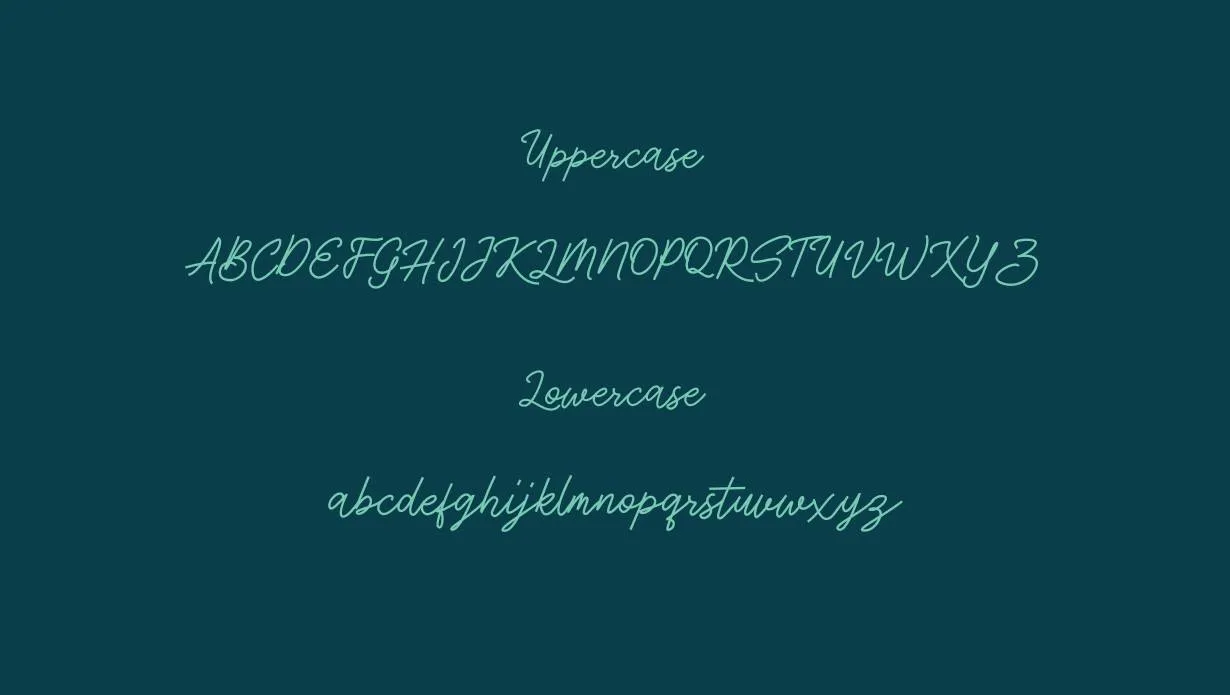
The Antique Font whispers tales of bygone eras, adding a vintage touch to your designs. Perfect for projects that embrace nostalgia or a classic aesthetic, its characters transport you to the past.
| Name | Antique Font |
| Designer | Frantisek Storm |